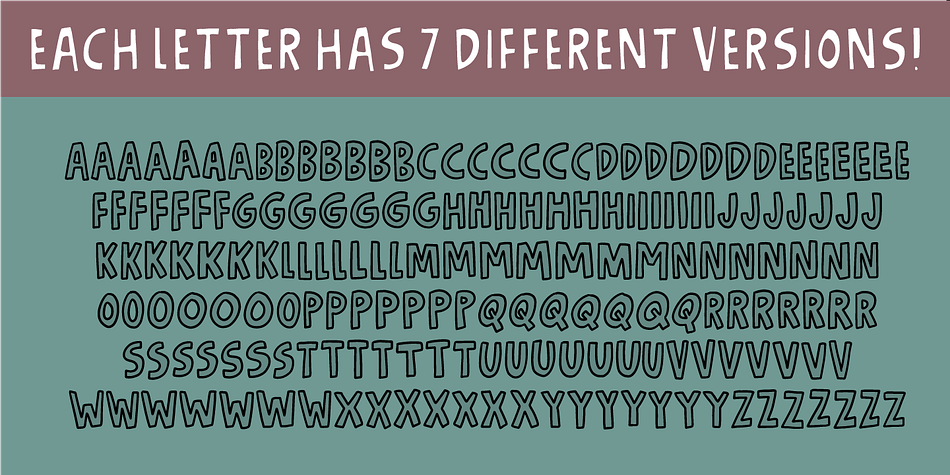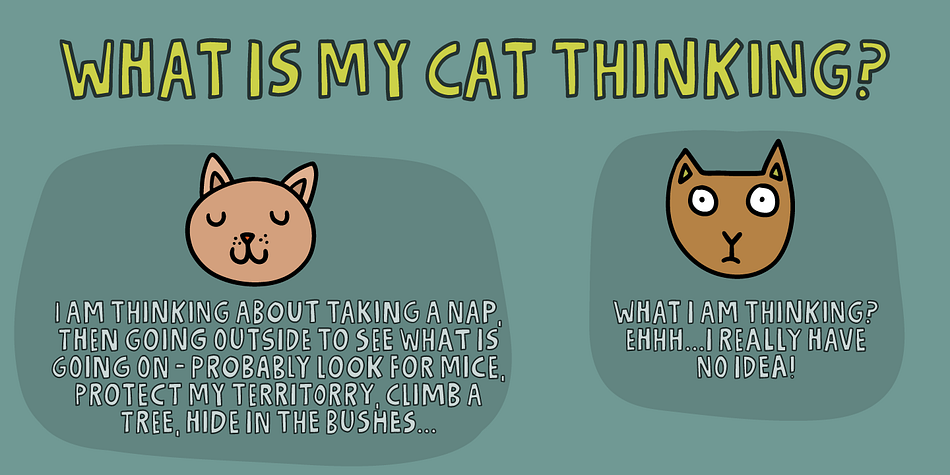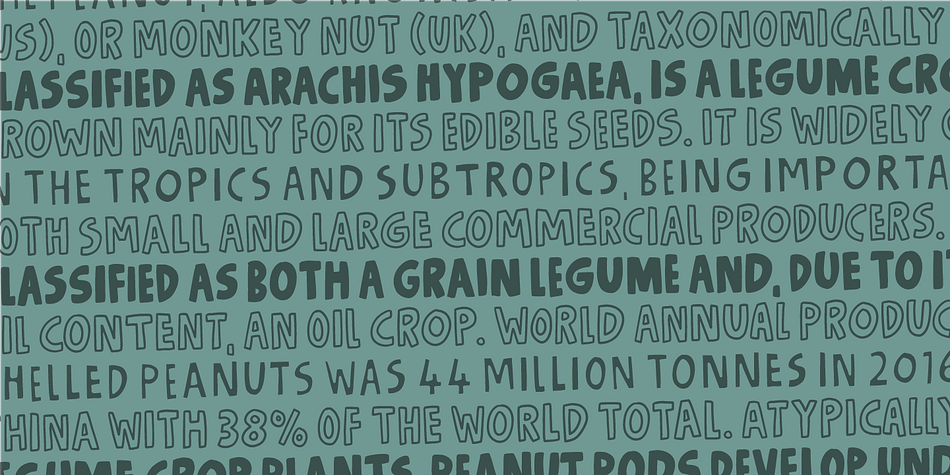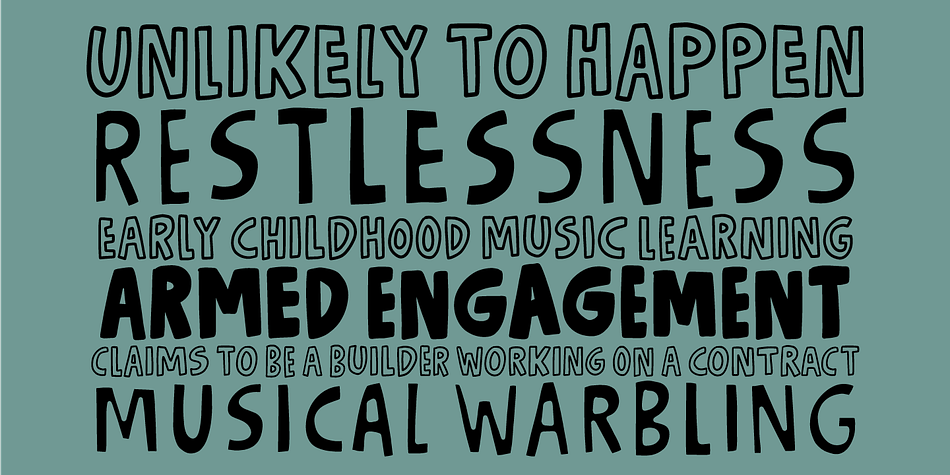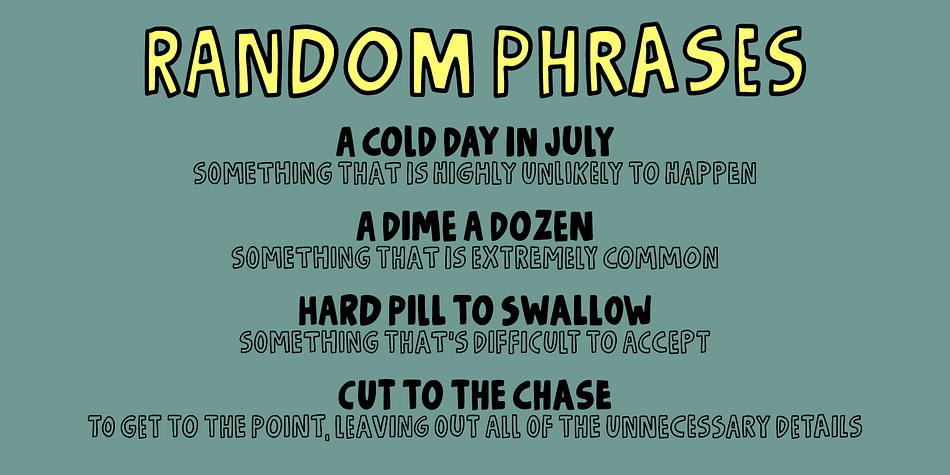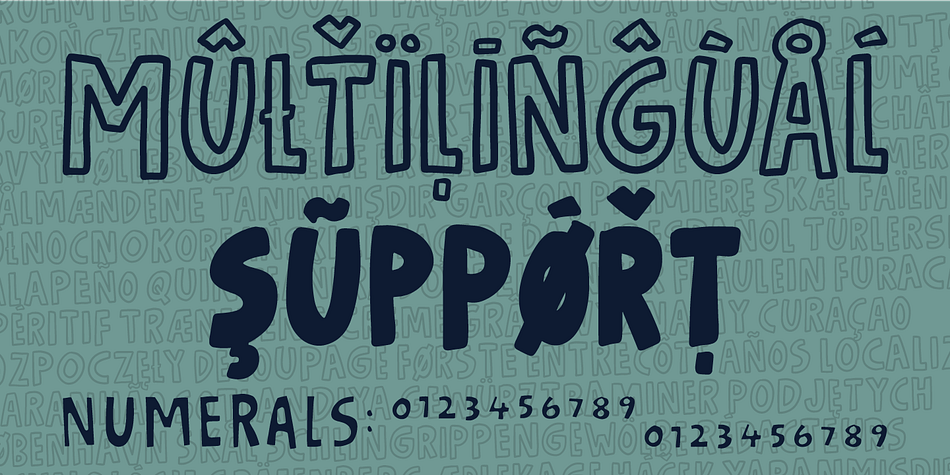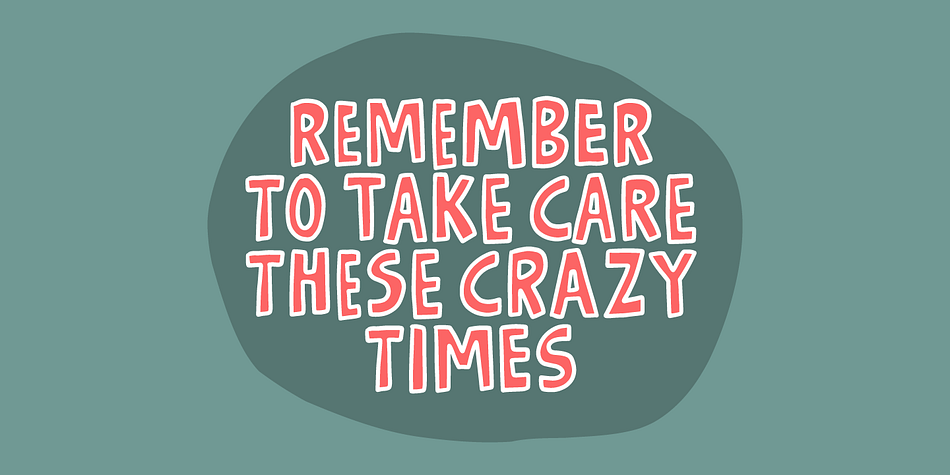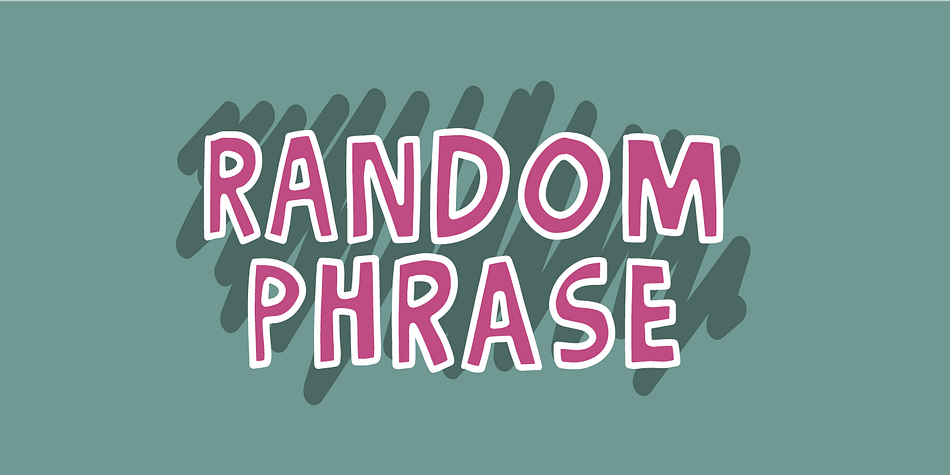
Designed by Jakob Fischer, Random Phrase is a hand display font family. This typeface has three styles and was published by Bogstav.
Every now and then you can use a good phrase, and luckily there’s a lot to choose from. This font also have a lot to choose from, because I’ve added 7 different (and hastily written) versions of each letter. The font is 100% handmade and I did very little to clean up the lines, and that’s why the font is “perfect” in it’s simple forms ... “In nature, nothing is perfect and everything is perfect” - and that, my friend, is the random phrase of the day! :)